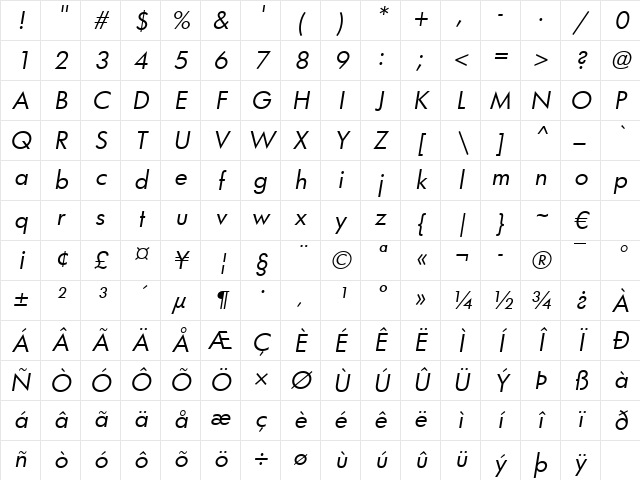
Futura Bk Book Italic
Style: Book Italic
Design Context for Futura Bk
Futura Bk has a distinctly futuristic character, with geometric precision and clean angles that feel at home in technology, gaming, and sci-fi contexts. The slanted form adds forward momentum and visual energy.
Pro Tip: Try Futura Bk with generous letter-spacing in UI labels and navigation - the geometric forms benefit from room to breathe.